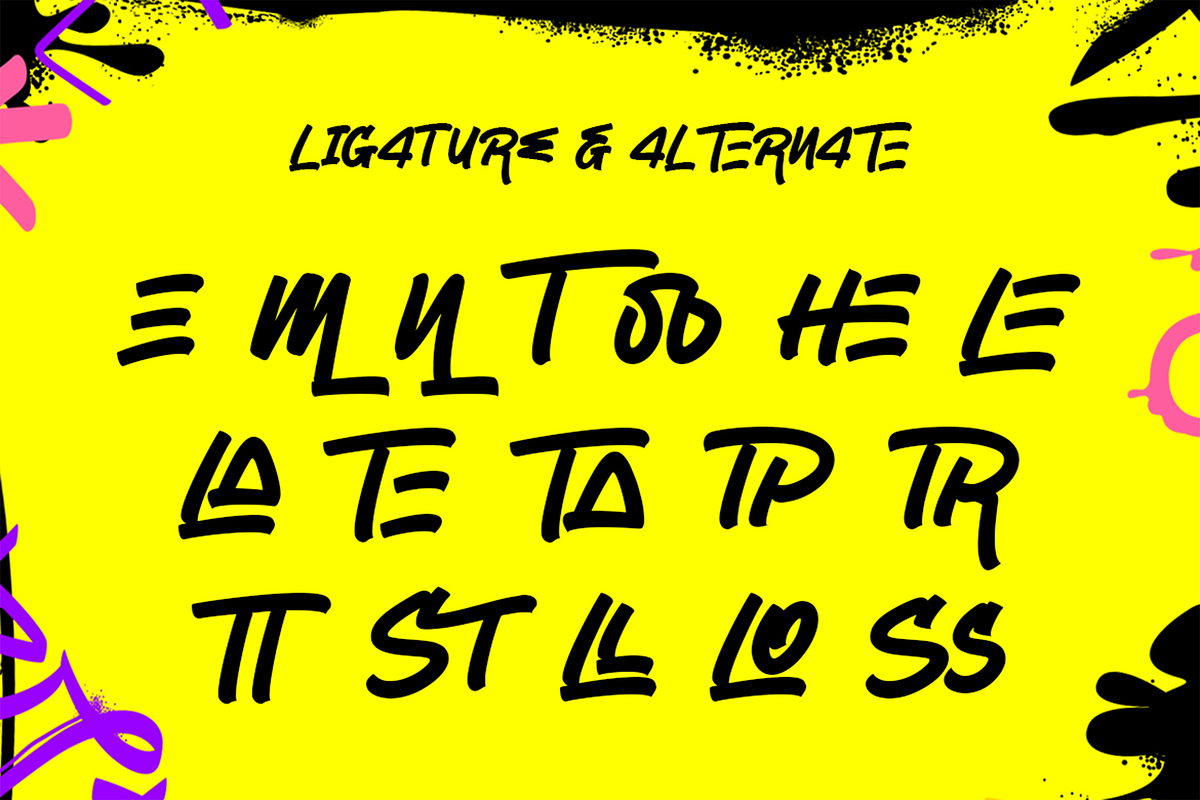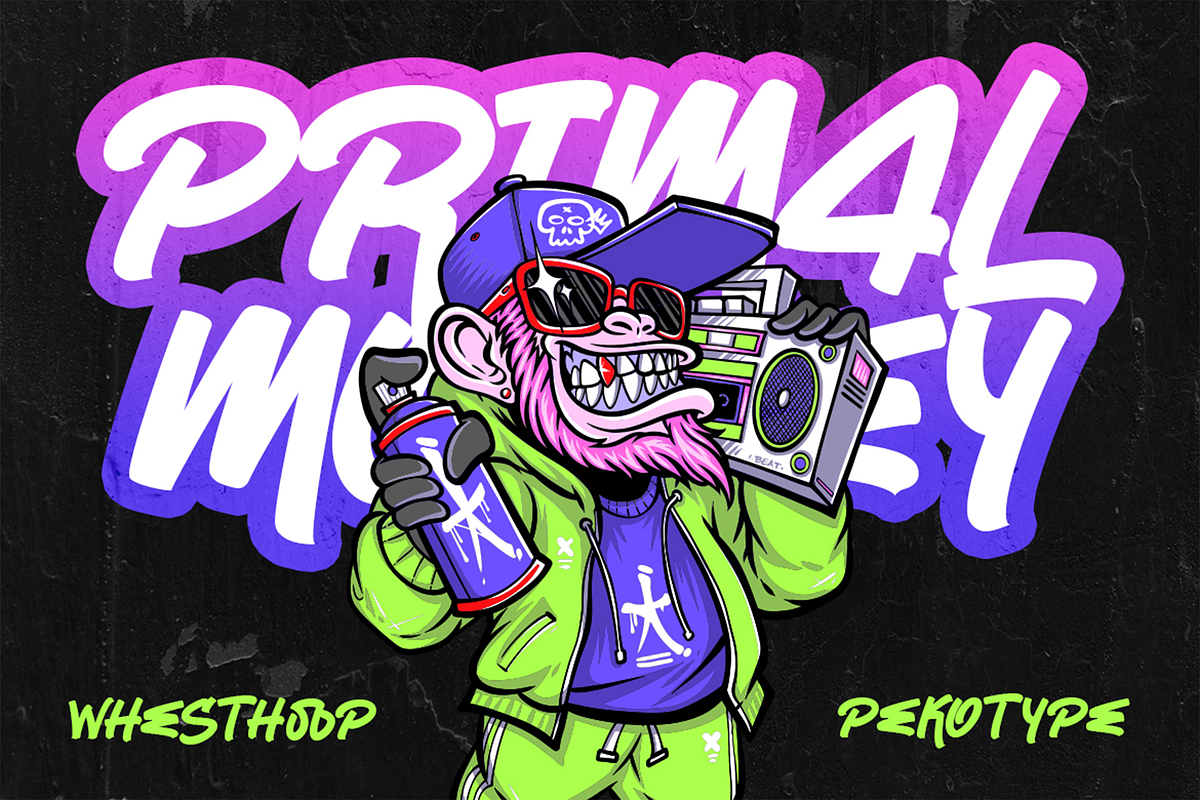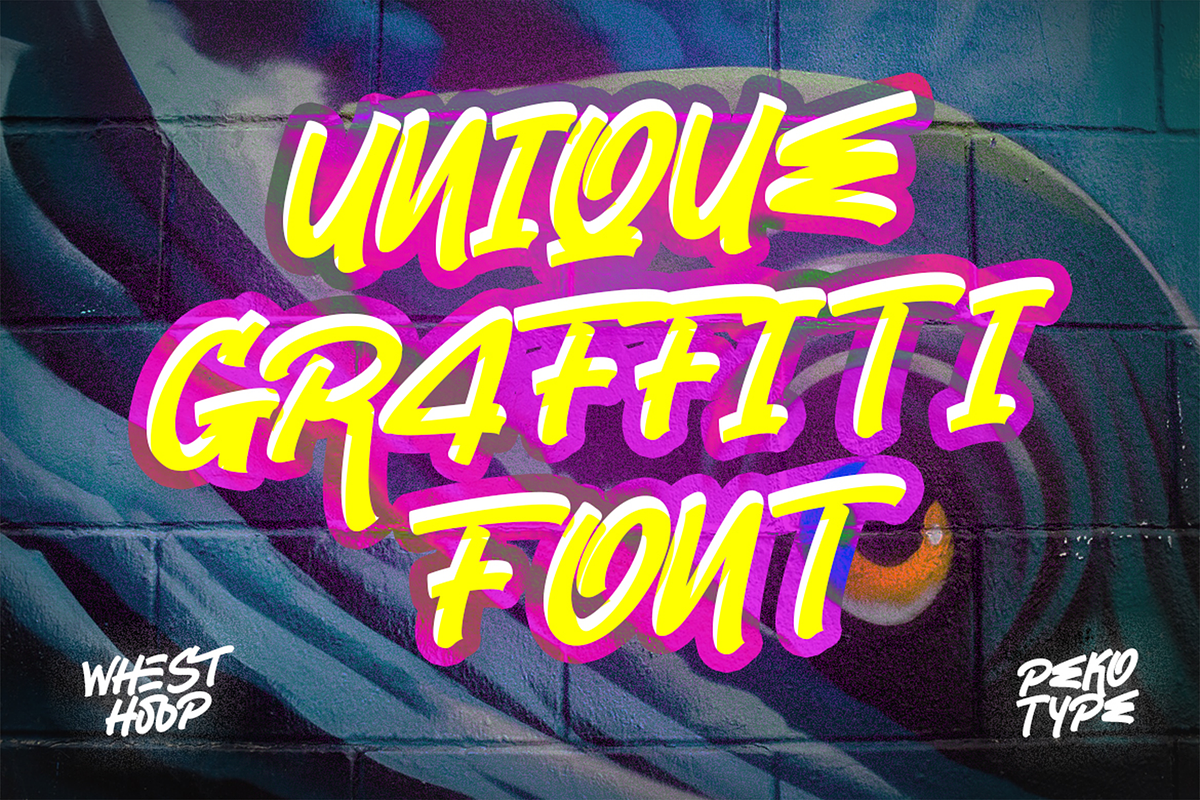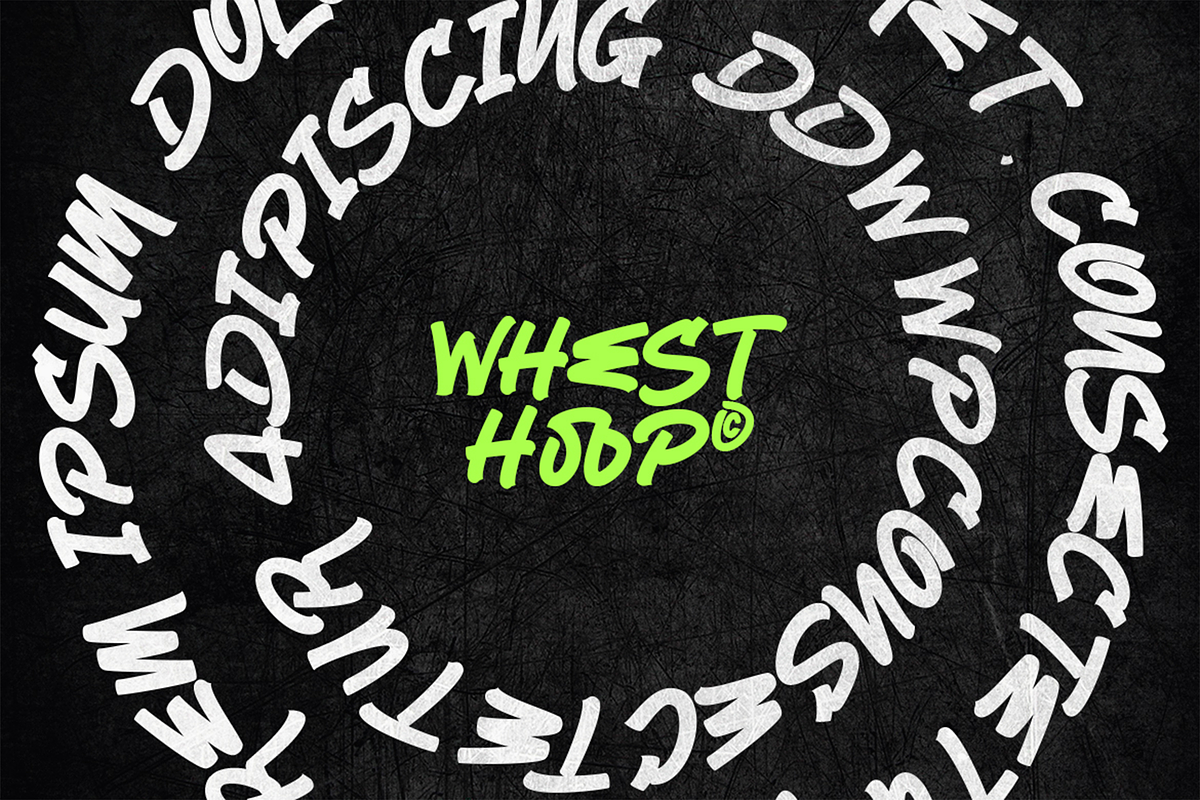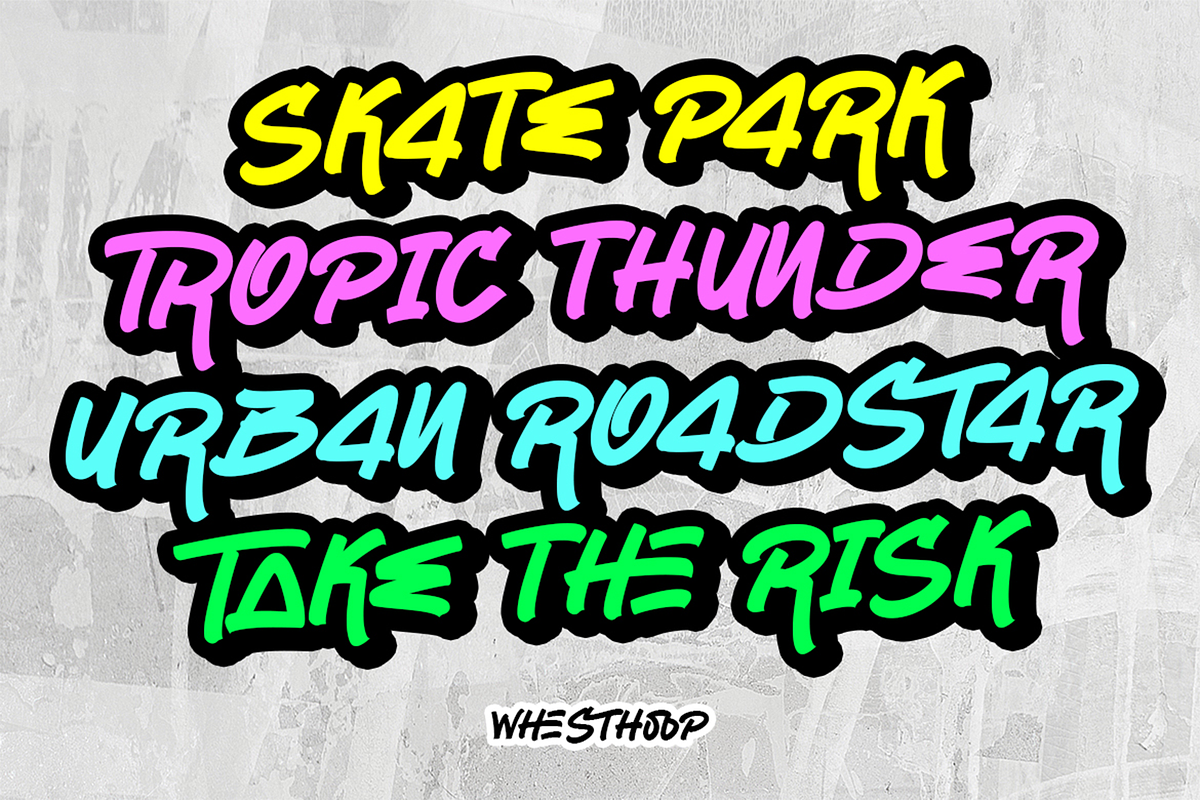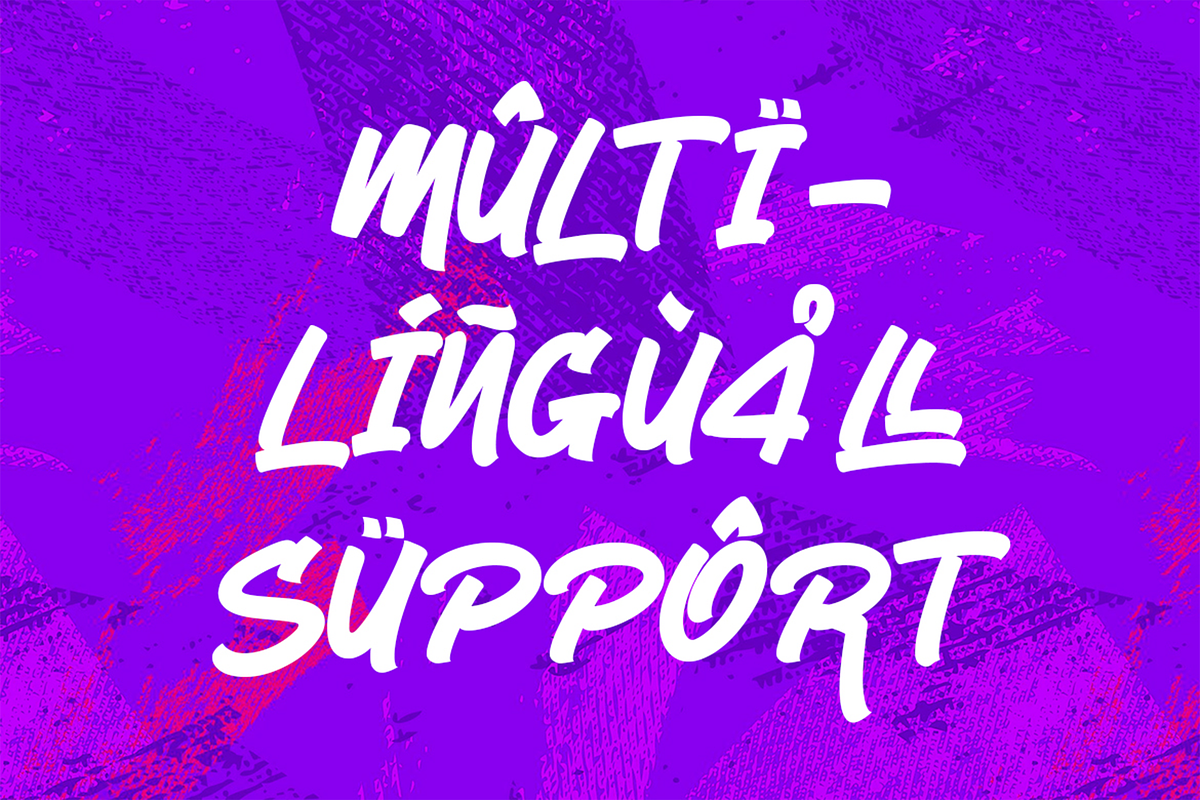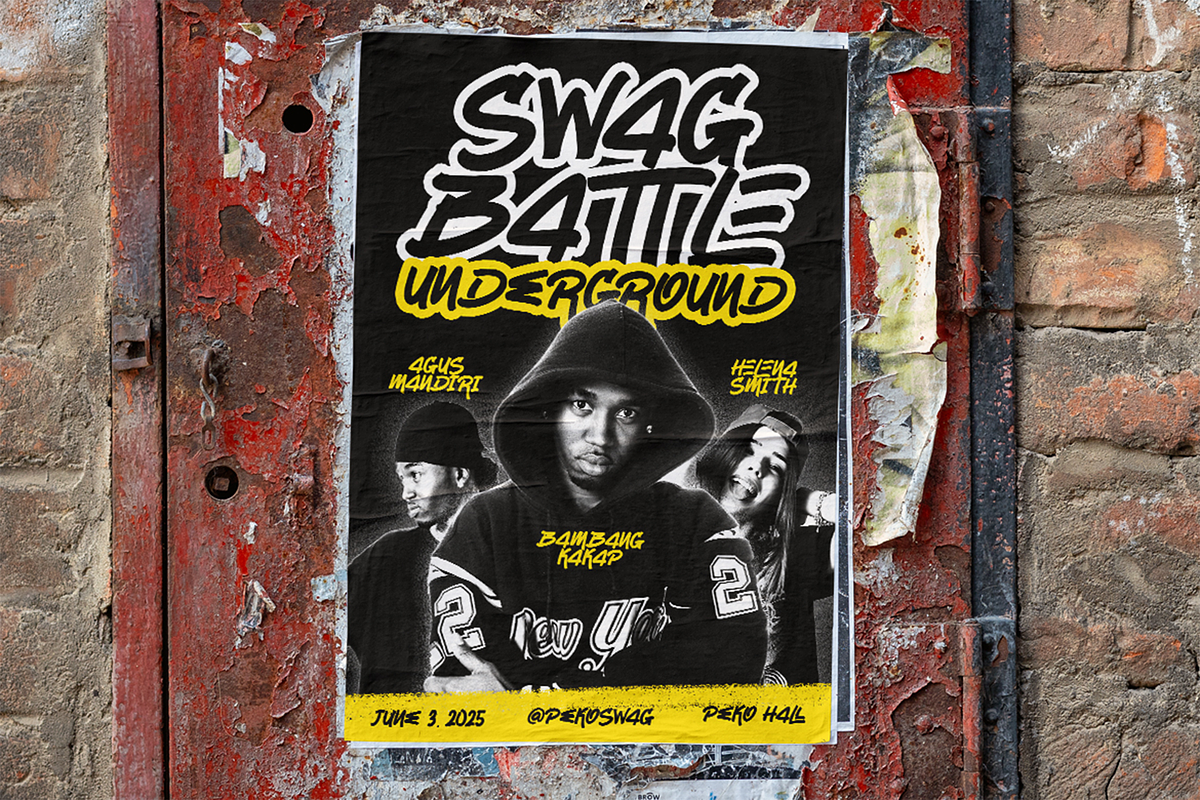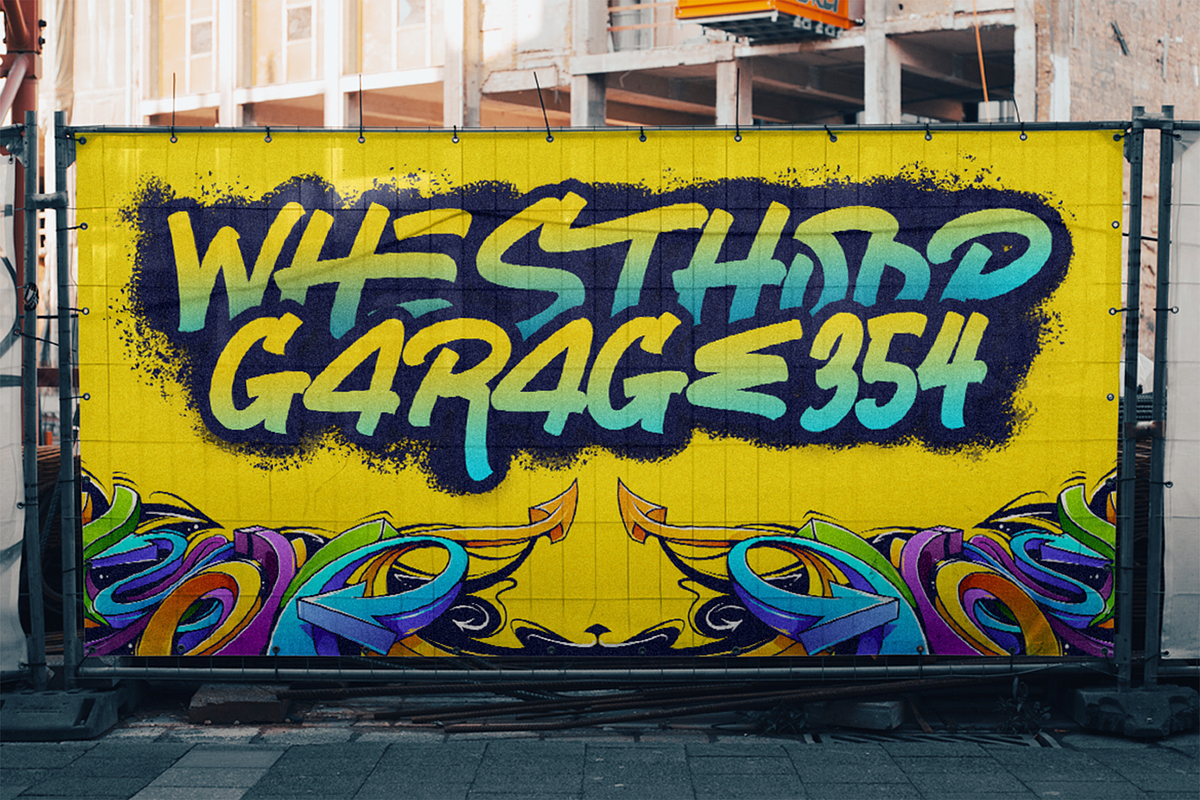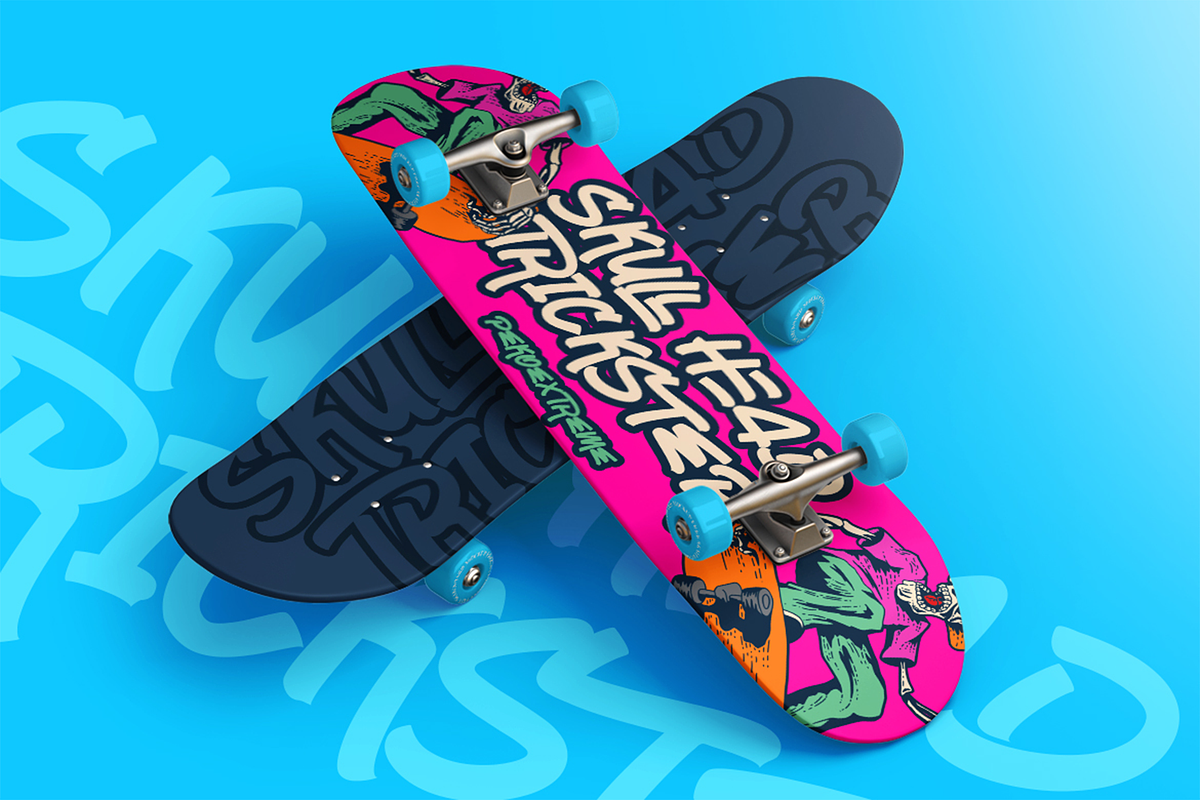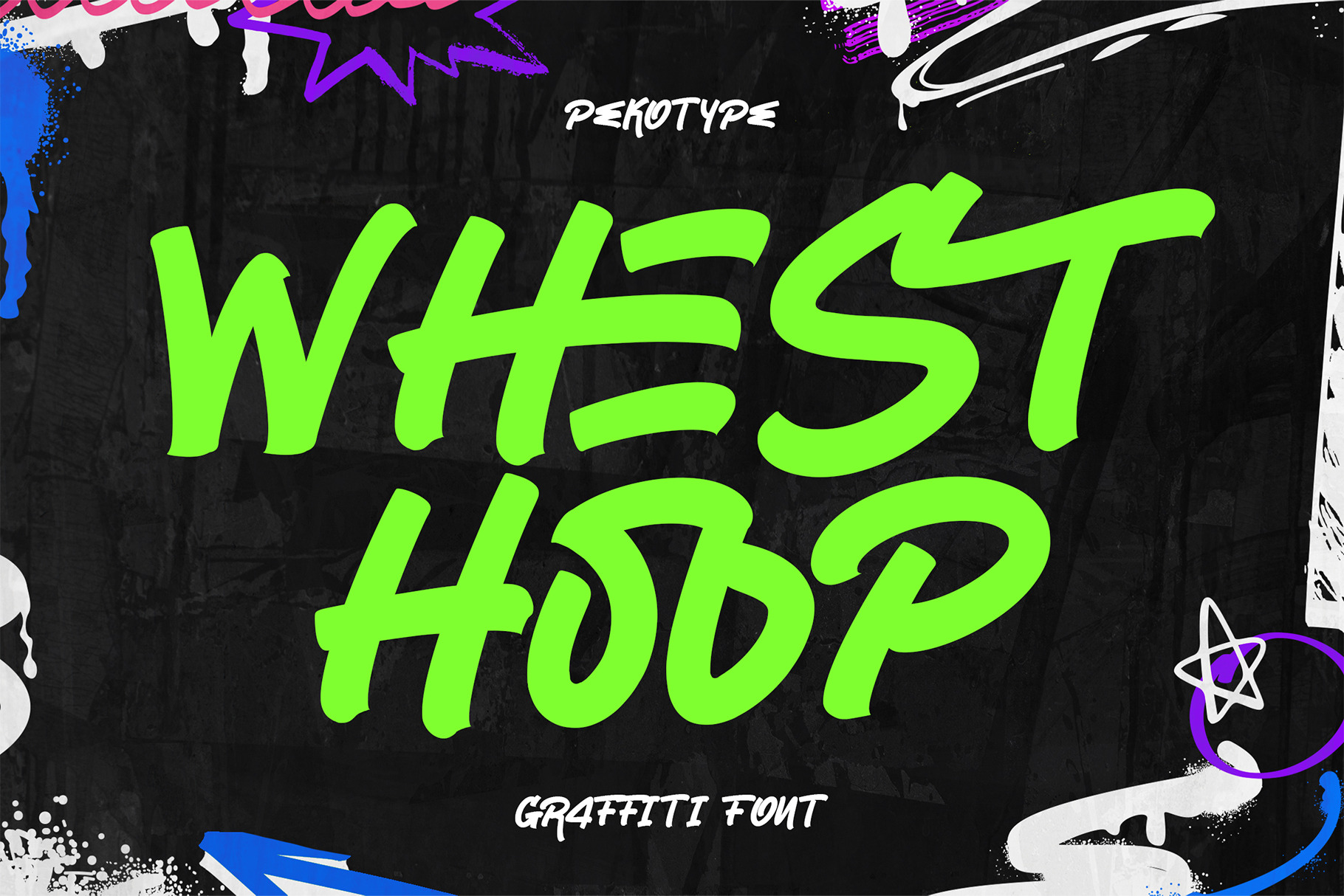
Whest Hoop - Graffiti Font
WHEST HOOP – Bold Graffiti Display Font Unleash the urban spirit with WHEST HOOP, a bold graffiti display font that blends street-style attitude with modern versatility. Inspired by the energy of skate culture, city walls, and hip-hop beats, WHEST HOOP delivers strong character, unique letterforms, and clean legibility—perfect for making your design stand out.
Whether you're crafting branding, logos, skateboard graphics, packaging, event posters, or edgy social media content, WHEST HOOP brings an authentic, streetwise edge to every project.
- All caps alphabet
- Number, symbol, & punctuation
- Highly readable, even with stylized forms
- Perfect for headlines, logos, posters, events, and more
- Bold & expressive graffiti style
- Perfect for urban, youth, and lifestyle themes
Make your message loud, proud, and impossible to ignore. WHEST HOOP is not just a font—it’s a statement. Ready to bring the streets to your screen?